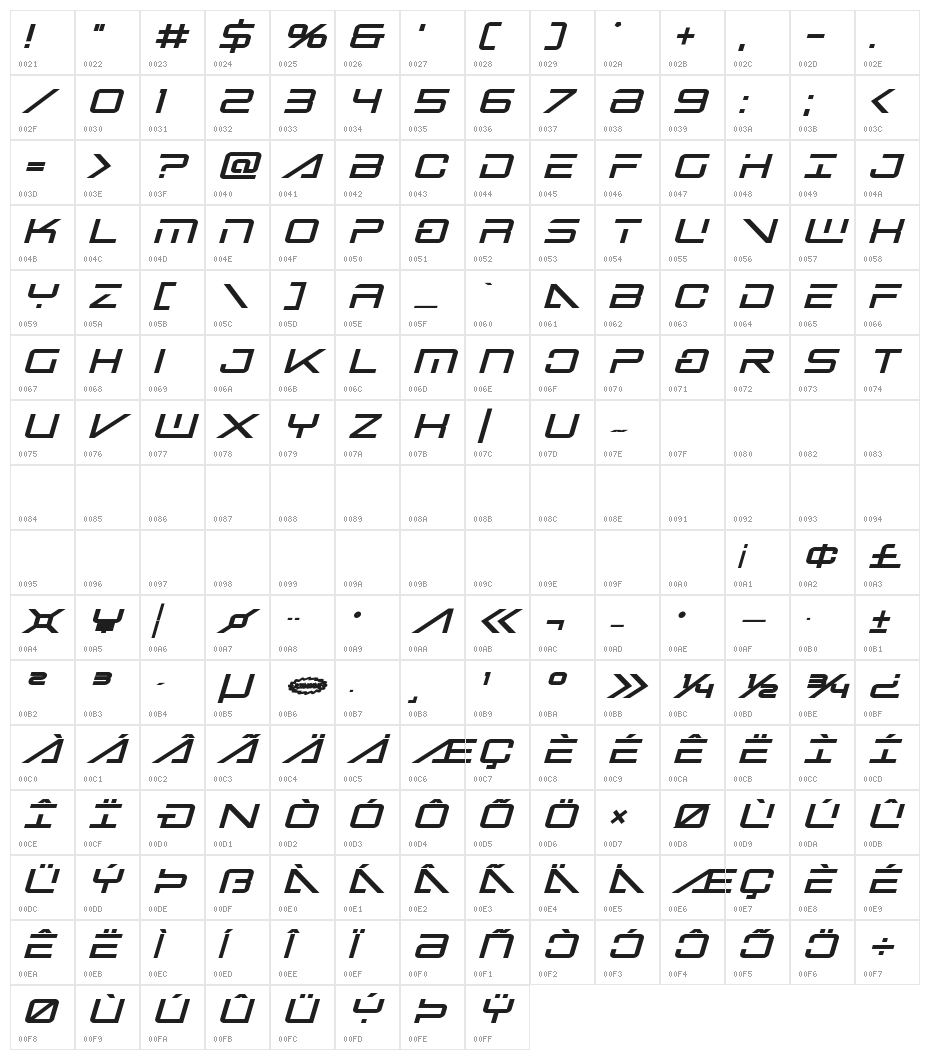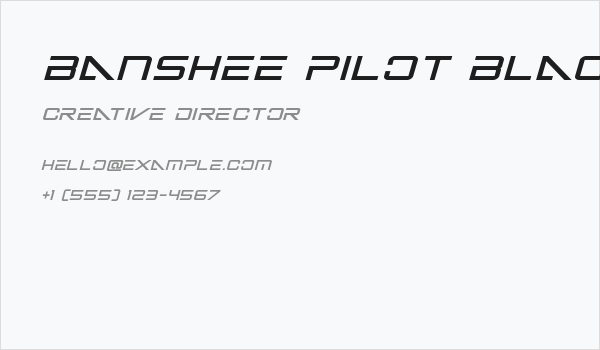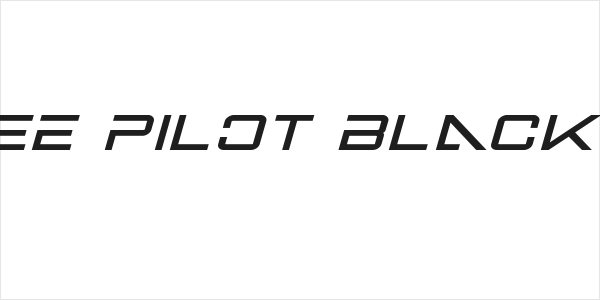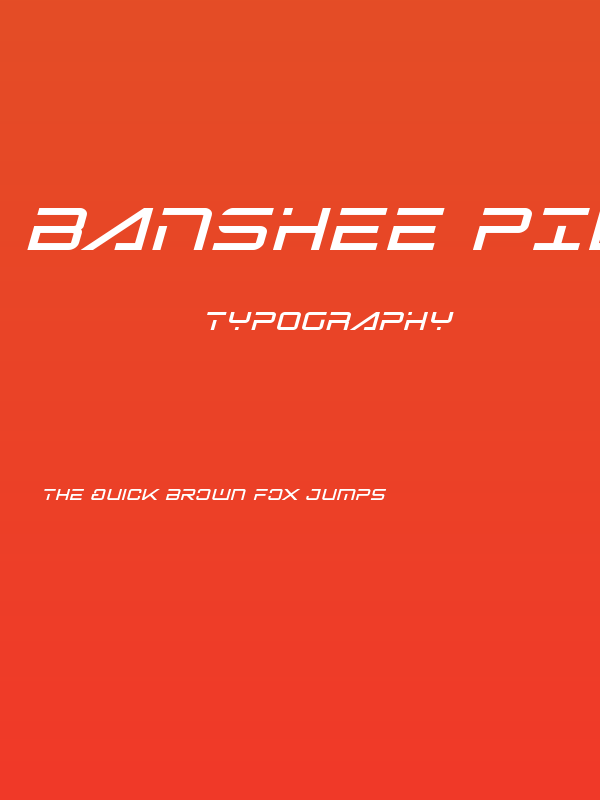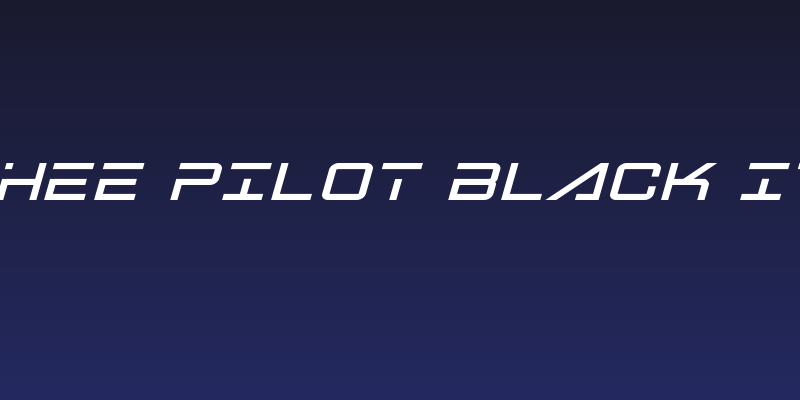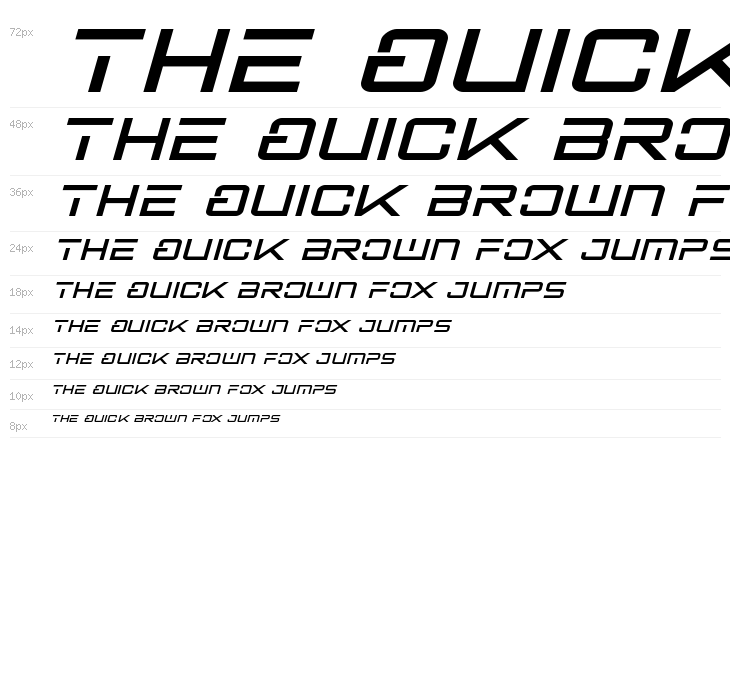
Banshee Pilot Black Italic Font
Banshee Pilot Black Italic Description
This font exhibits a futuristic and dynamic style with a strong geometric influence. The characters are slanted, giving an italicized appearance that enhances the sense of motion and speed. The strokes are bold and consistent, with a uniform thickness that maintains readability while adding a modern edge. The angular design of the letters, particularly noticeable in the uppercase, contributes to a tech-inspired aesthetic. The numerals and special characters follow the same stylistic approach, ensuring cohesion across all glyphs. This font is ideal for projects that require a contemporary and energetic look.